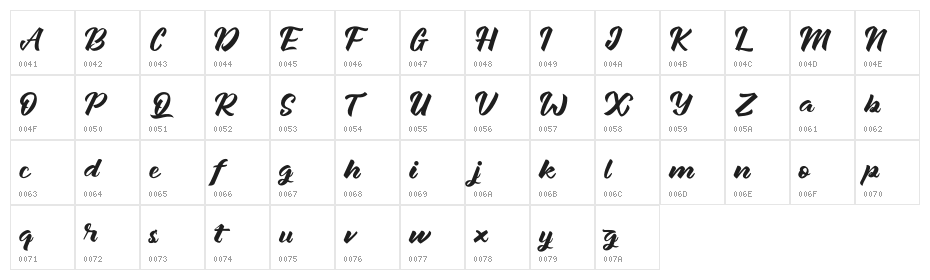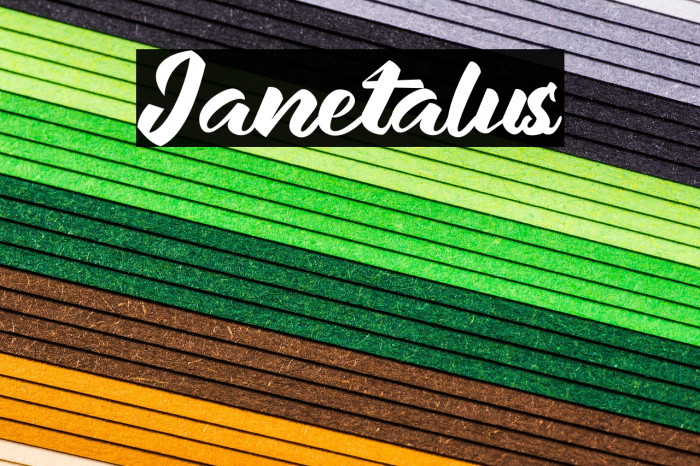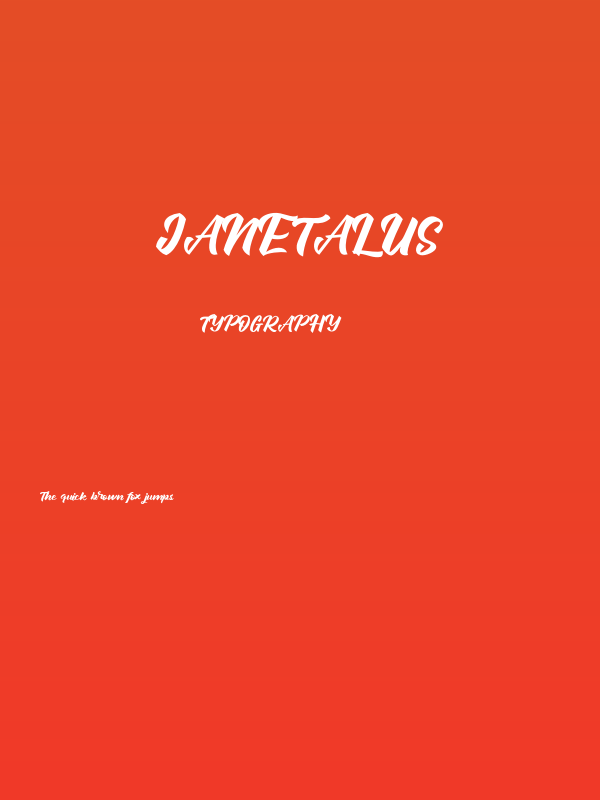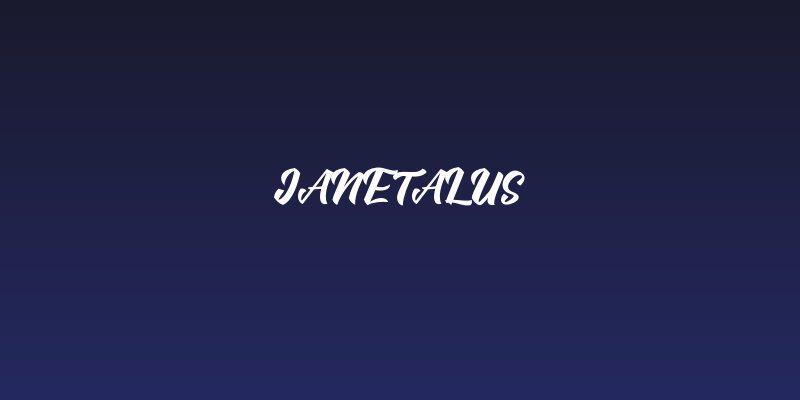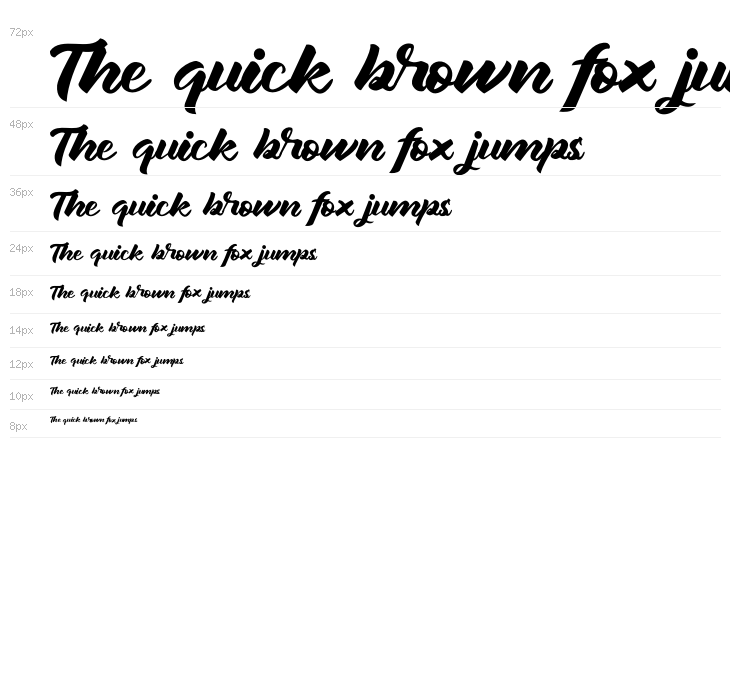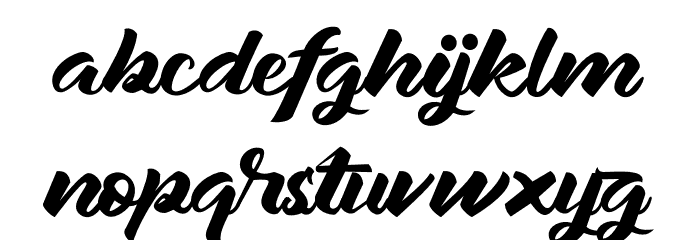
Janetalus Font
Janetalus Description
This font features a bold, cursive style with a flowing, handwritten appearance. The uppercase letters are characterized by their dramatic, sweeping curves and thick strokes, giving them a dynamic and energetic feel. The lowercase letters maintain the same fluidity, with some letters connecting seamlessly to the next, enhancing the script-like quality. The overall design is elegant and expressive, suitable for creating a sense of movement and personality in text. The font's boldness ensures readability while maintaining an artistic flair.